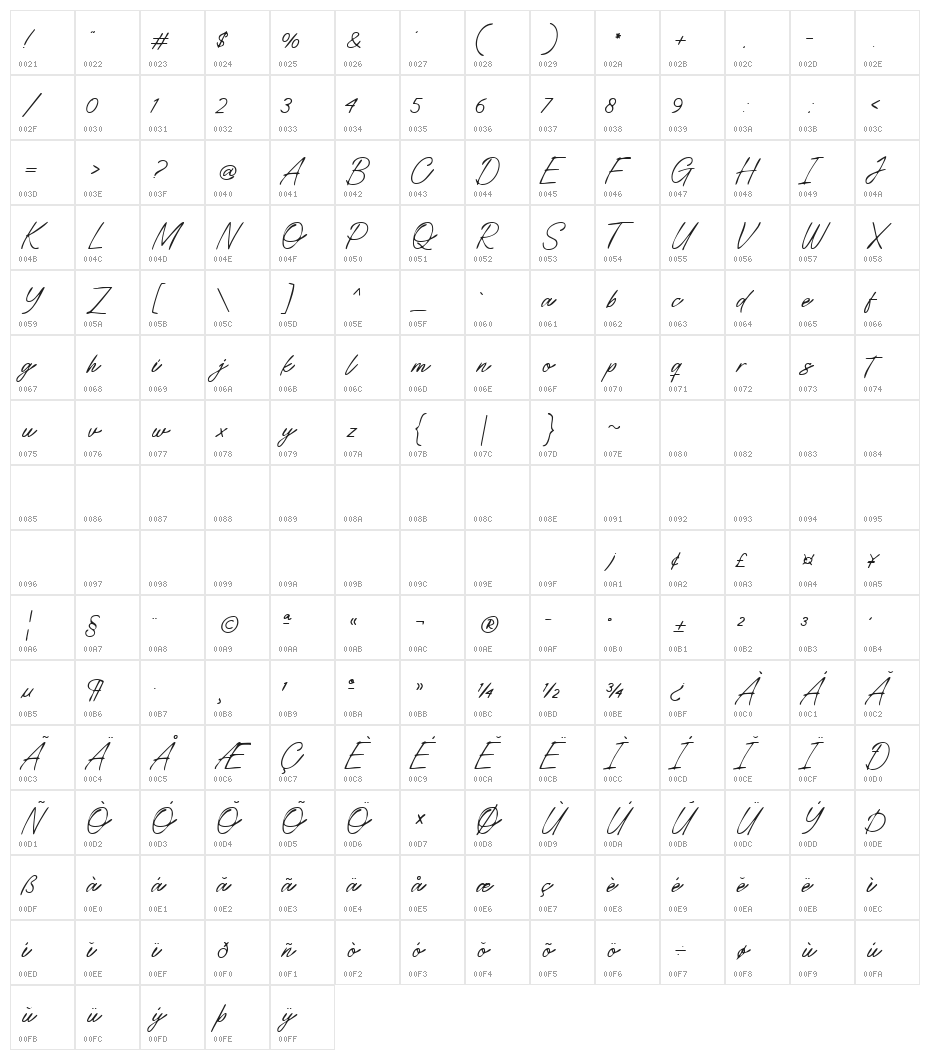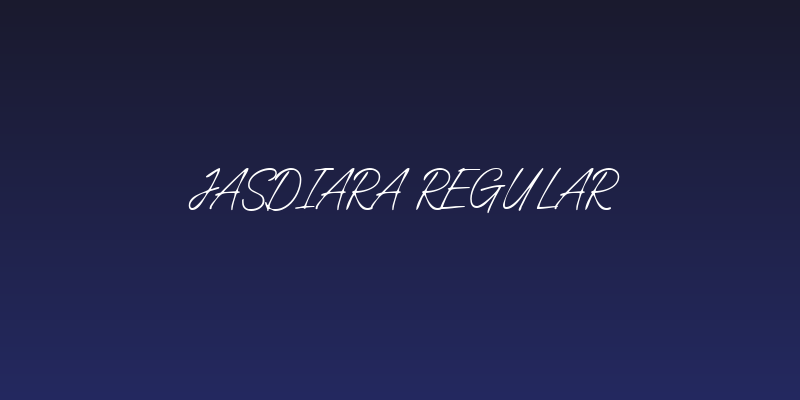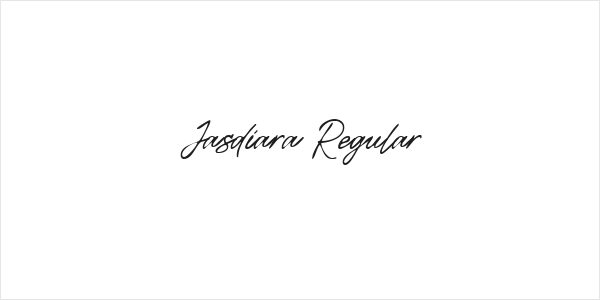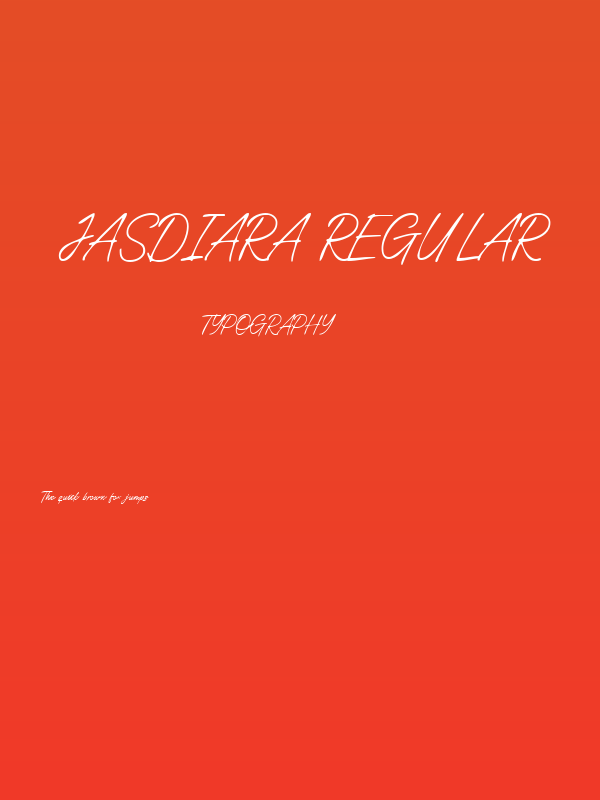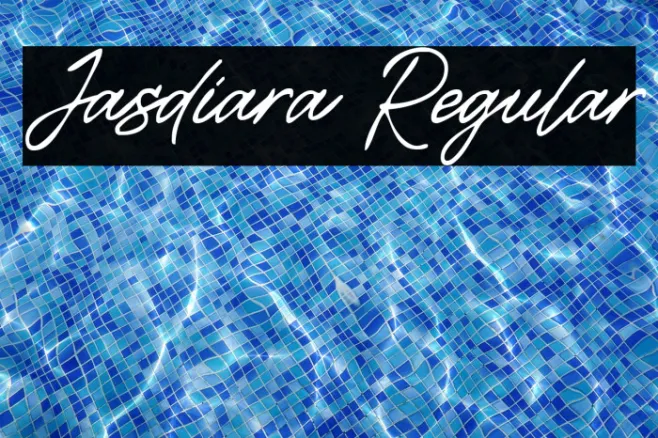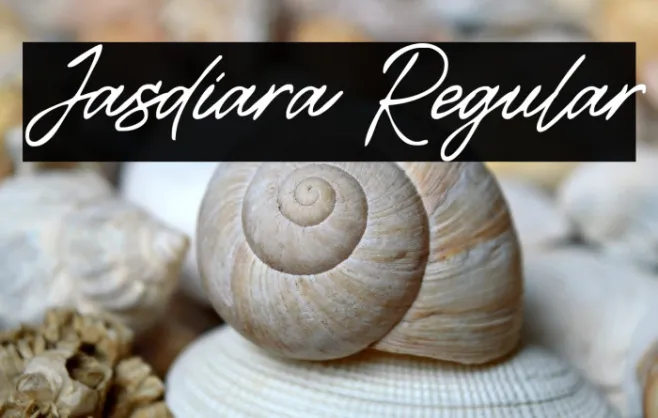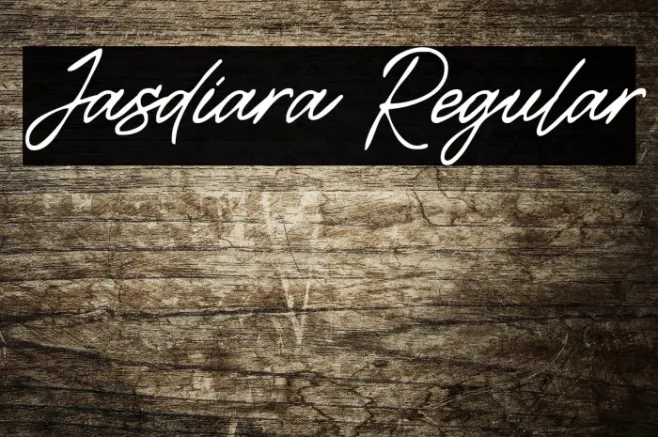
Jasdiara Regular Font
Jasdiara Regular Description
This font exudes a sense of elegance and fluidity, characterized by its cursive, handwritten style. The letters are connected in a smooth, flowing manner, giving it a natural and personal touch. The uppercase letters maintain a consistent height, while the lowercase letters feature gentle loops and curves, enhancing its graceful appearance. The numerals are well-integrated, matching the overall aesthetic with their rounded forms. Special characters are thoughtfully designed to complement the script, making it versatile for various uses. The font's overall impression is one of sophistication and charm, suitable for projects that require a personal or artistic flair.
| Overall Style | Elegant, Artistic |
| Proposed Projects | Ideal for wedding invitations, personal branding, greeting cards, and artistic projects. |